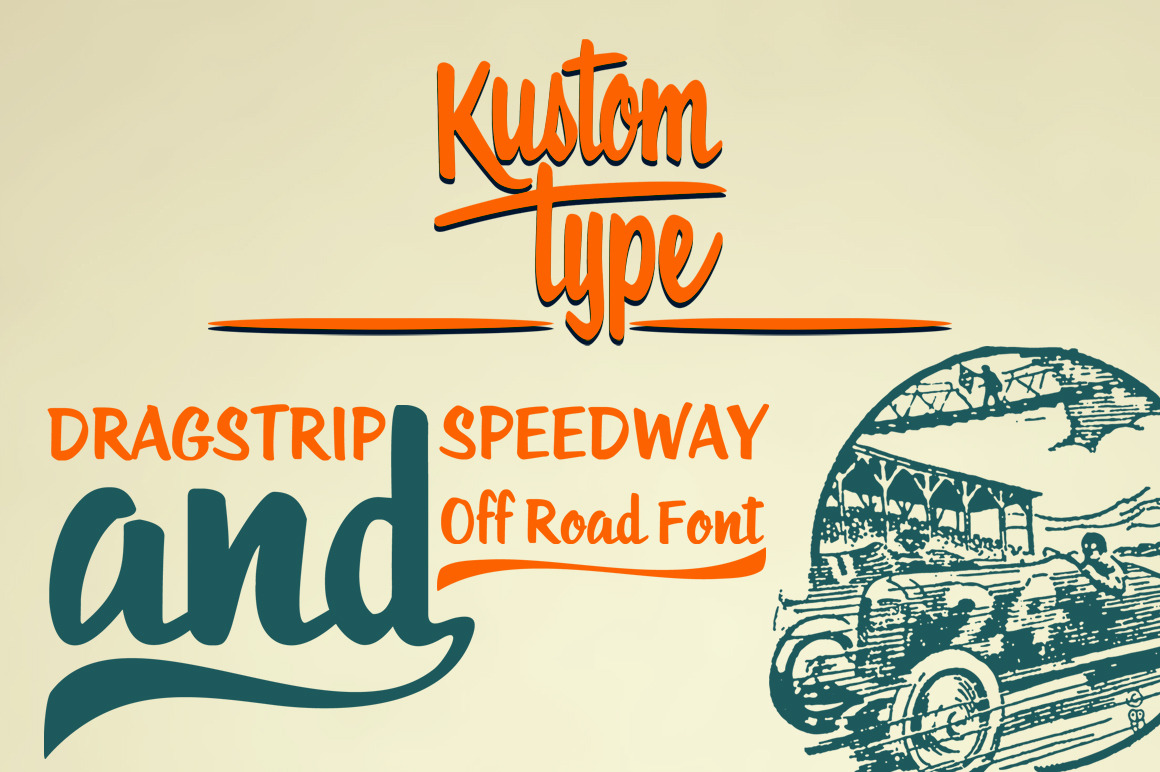
Roadstar Font Script
About this font family Roadstar is a script designed in the style of the classic American advertising font from the 1940’s-1950’s. Roadstar is a retro brush-style script designed for logotype, packaging, posters, T-shirts, signage & design projects with a retro & vintage feel. Roadstar comes with two styles that both contain all upper and lower case characters, punctuation, numerals and mathematical operators, as well as all accented characters.